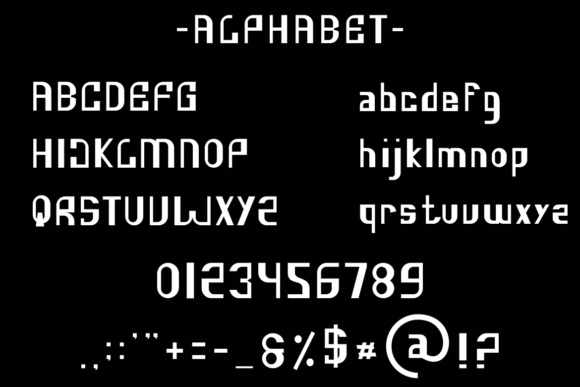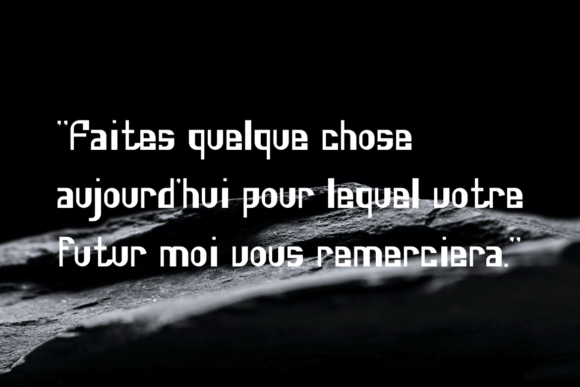
Garpilo Font: The Ultimate Modern Hippie Display Typeface
In the world of typography, fonts play a crucial role in conveying the tone and personality of a brand. For designers and crafters looking for a unique and eye-catching typeface, Garpilo Font is an excellent choice. This modern hippie display typeface is perfect for a wide range of branding projects, from logos and t-shirt printing to esports and more.
What Makes Garpilo Font Stand Out?
Garpilo Font is a standout typeface that exudes a free-spirited and bohemian vibe. Its unique design elements make it perfect for projects that require a bold and playful touch. Here are some key features that make Garpilo Font an excellent choice:
- Modern Hippie Style: Garpilo Font embodies the spirit of the modern hippie movement, with its flowing lines and carefree attitude.
- Display Typeface: This font is designed to make a statement, making it perfect for headlines, titles, and other display purposes.
- Versatile: Garpilo Font can be used in a wide range of contexts, from branding and advertising to packaging and merchandise.
Perfect for Branding Projects
Garpilo Font is an excellent choice for branding projects that require a unique and memorable typeface. Here are some ways you can use Garpilo Font for your branding projects:
- Logo Design: Create a bold and eye-catching logo that stands out from the crowd with Garpilo Font.
- T-Shirt Printing: Add a touch of personality to your t-shirt designs with Garpilo Font, perfect for custom apparel and merchandise.
- Esports: Garpilo Font is also perfect for esports branding, adding a modern and edgy touch to your team’s identity.
Why Designers and Crafters Love Garpilo Font
Designers and crafters love Garpilo Font for its unique and versatile design. Here are some reasons why:
- Ease of Use: Garpilo Font is easy to use and pairs well with a wide range of other fonts, making it perfect for mixing and matching.
- Customization: With Garpilo Font, you can easily customize your text to fit your brand’s personality and style.
- High-Quality Design: Garpilo Font is designed with high-quality and precision, ensuring that your branding projects look professional and polished.
Tips for Using Garpilo Font
Here are some tips for using Garpilo Font in your branding projects:
- Pair with Neutral Fonts: Pair Garpilo Font with neutral fonts to create a balanced and harmonious design.
- Keep it Simple: Keep your design simple and clean to let Garpilo Font take center stage.
Garpilo Font is a modern hippie display typeface that is perfect for branding projects that require a unique and eye-catching touch. With its versatile design and ease of use, Garpilo Font is an excellent choice for designers and crafters looking to add a bold and playful touch to their projects. Whether you’re creating a logo, t-shirt design, or esports branding, Garpilo Font is sure to make a statement.